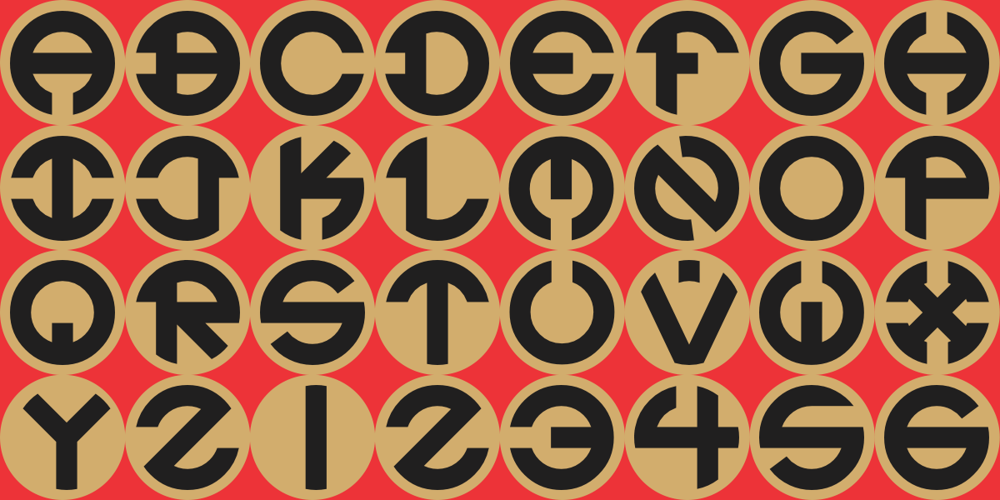
Circle BA
Circle BA font
Circle BA Font Family was designed by Todd Hallock and published by Bannigan Artworks. Circle BA contains 1 styles and family package options. Each character of this display font fits into a circle.